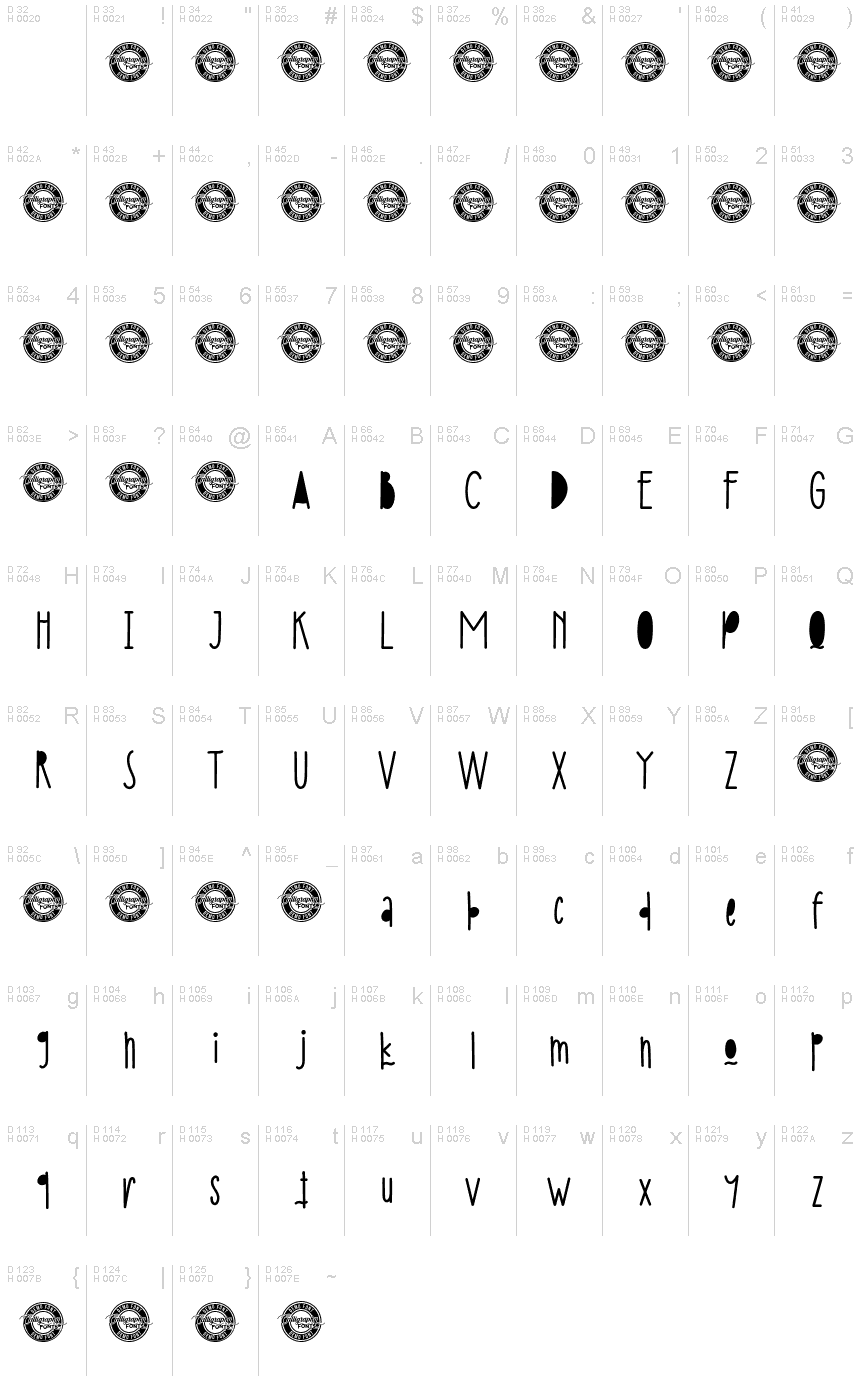
White Black Demo
White Black, designed by Widiyanti & Sarah SP, is a sleek and modern display font with a semi-light weight and condensed width. Perfect for headlines, logos, and branding materials that require a bold statement, this font exudes confidence and sophistication. Its narrow profile makes it an ideal choice for projects where space is at a premium. Use White Black to create eye-catching designs that demand attention across industries such as beauty, fashion, technology, and more. Elevate your projects with this unique semi-light typeface that delivers both style and substance.